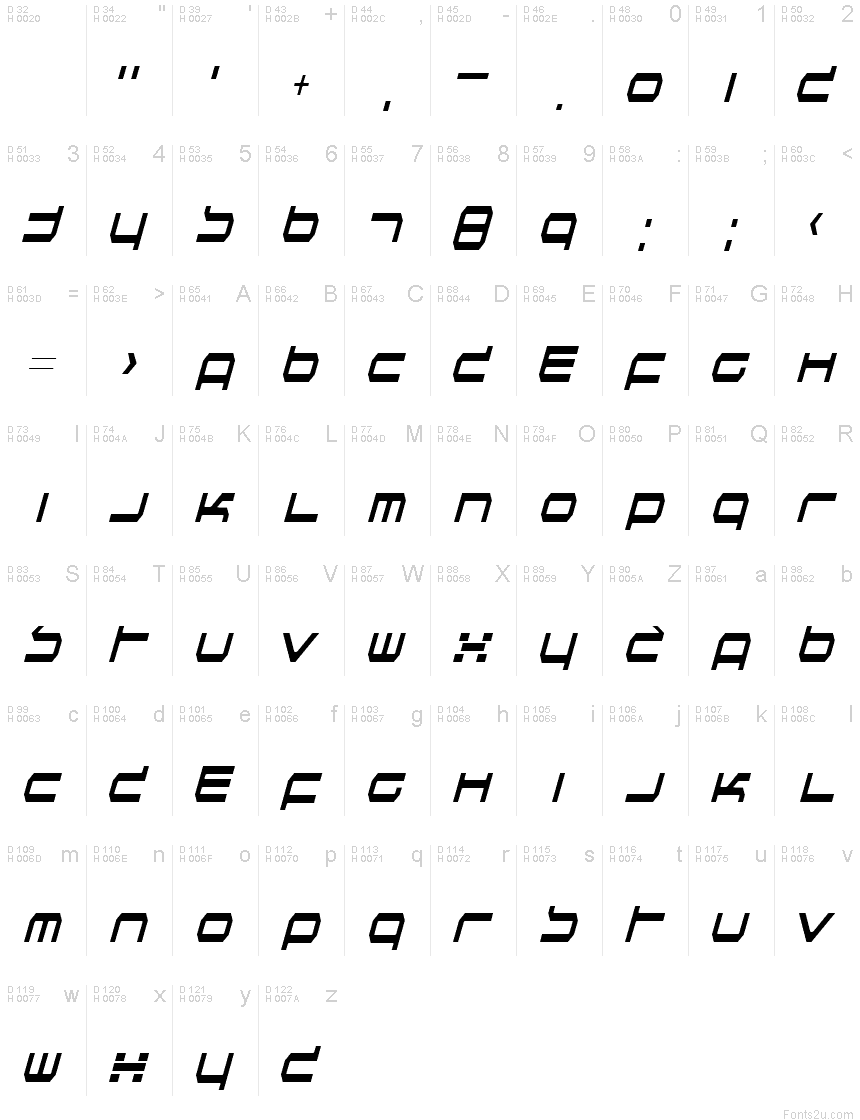
Quickness TT by Robert Cortez of attack22.com is a free futuristic display font with sharply slanted, extended letters and a strong sense of forward motion. Broad horizontal strokes, clipped corners, and deep angular cuts give the lettering the engineered profile of racing graphics, with unusual openings that keep the silhouettes taut and recognizable.
Speed and machine culture make it especially apt for motorsport posters, racing-game interfaces, athletic apparel, and event merchandise, since the low aerodynamic forms echo vehicle profiles and technical graphics without copying a specific marque. For performance brands, it can turn a product name into a custom badge.